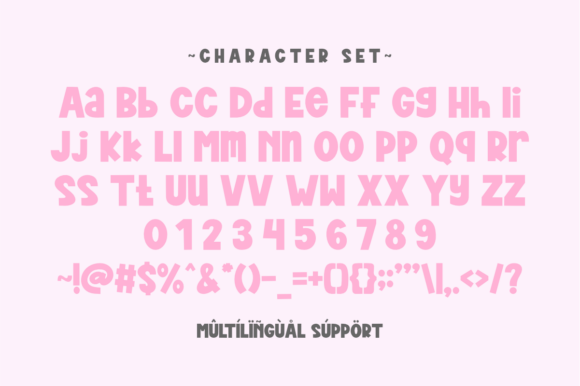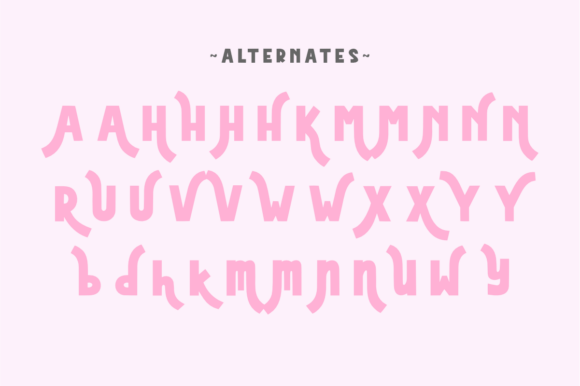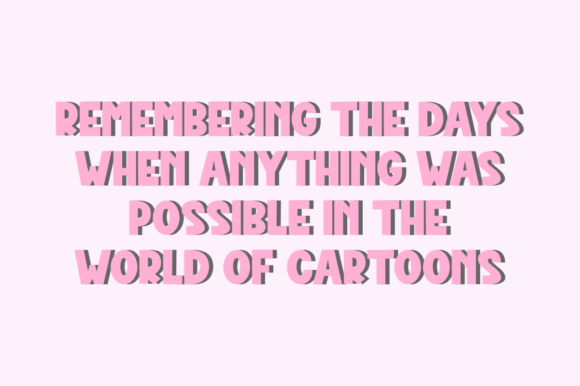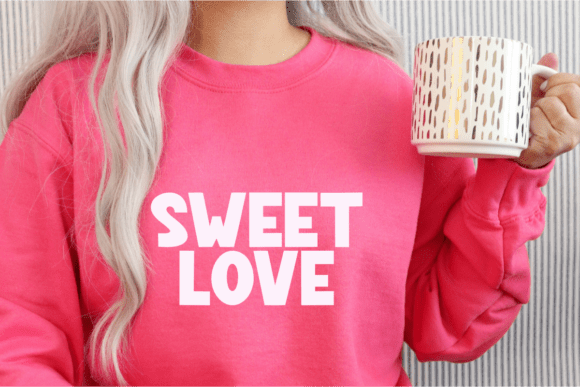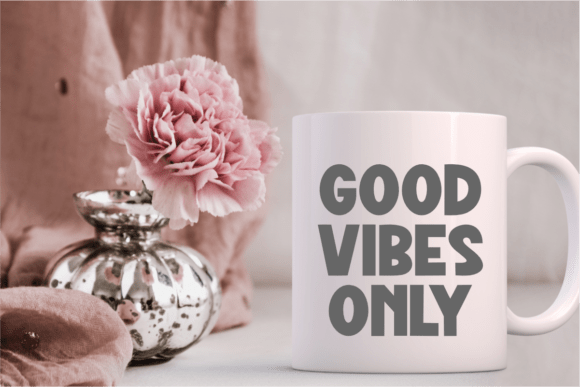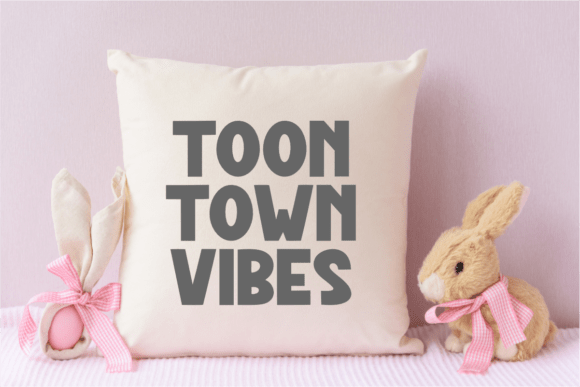
Bringing Joy to Your Designs: The Magic of Cartoon Vibes Font
Do you remember the thrill of doodling in your notebook as a kid, letting your imagination run wild with colorful characters and zany patterns? For many of us, that carefree spirit of creativity never truly fades, and it’s what drives us to create engaging designs that bring a smile to people’s faces. As designers, we’re always on the lookout for the perfect font to capture that essence and make our projects truly stand out.
Enter Cartoon Vibes Font, a bold, playful display font designed to radiate positivity and creativity. This font is perfect for bringing a whimsical aesthetic to children’s books, comics, branding, and more, making it a valuable addition to any designer’s toolkit. Its chunky, high-impact letterforms and subtle 3D shadow effect make it a standout choice for eye-catching designs that demand attention.
Whether you’re working on a children’s book, social media campaign, or merchandise design, Cartoon Vibes Font is sure to bring a touch of joy and whimsy to your project. Its versatility and playfulness make it a must-have font for designers looking to add a little extra magic to their work.
Key Features of Cartoon Vibes Font
- Resolution: Cartoon Vibes Font is optimized for high-resolution displays, ensuring crisp and clear text even at larger sizes.
- Unique Characteristics: The font features playful, hand-drawn illustrations and bold lines that give it a fun and energetic vibe, perfect for creative projects and branding.
- Font Style: Cartoon Vibes Font comes in two styles: Regular and Bold, providing versatility for designers to create contrasting text effects and add emphasis to their designs.
- Unicode Support: The font supports a wide range of languages, including English, Spanish, French, German, and many more, making it a great choice for international designs and communications.
Designer Review: Cartoon Vibes Font
Overall, I think Cartoon Vibes Font is a fun and playful addition to any design project. ✨ Its whimsical style is perfect for children’s books, cartoons, and even some advertising campaigns. The font is highly customizable, allowing you to adjust the size, color, and spacing to fit your specific needs.
- ✨ High level of customizability
- ✨ Whimsical and playful style
- ✨ Suitable for children’s content and cartoons
- ✨ Easy to use and integrate into designs
However, there are a few limitations to consider: ⚠️ The font can feel a bit too cartoonish for more serious or professional projects. Additionally, some users may find the font too bold or overwhelming.
- ⚠️ Can feel too cartoonish for professional projects
- ⚠️ May be too bold or overwhelming for some users
- ⚠️ Limited versatility in more formal settings
Overall, I think Cartoon Vibes Font is a great choice for the right project. With its playful style and high level of customizability, it’s perfect for adding a touch of whimsy to your designs. Just be sure to use it in the right context!
The Cartoon Vibes Font is perfect for creating playful and whimsical designs. Use it for:
- Cartoon character designs
Remember to use the font in moderation to avoid overwhelming your design.